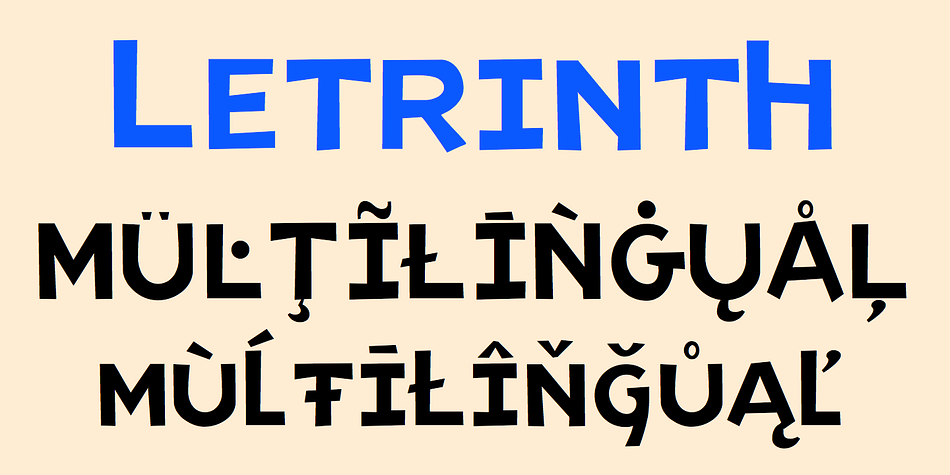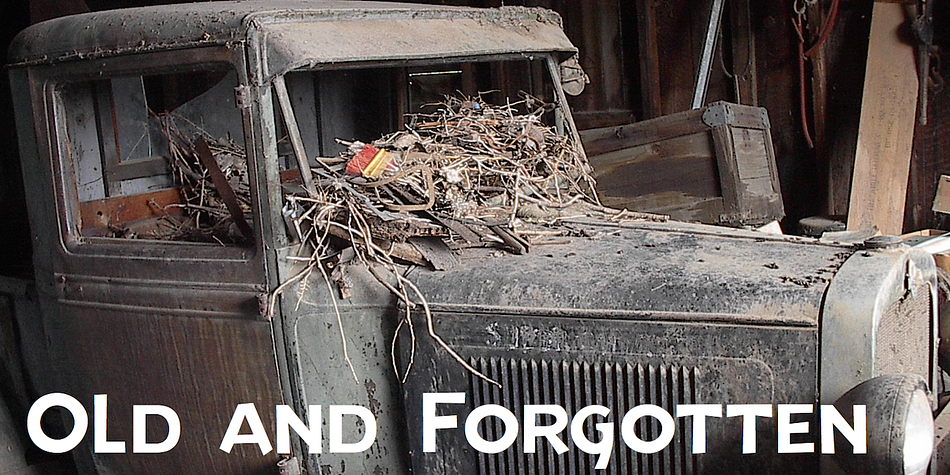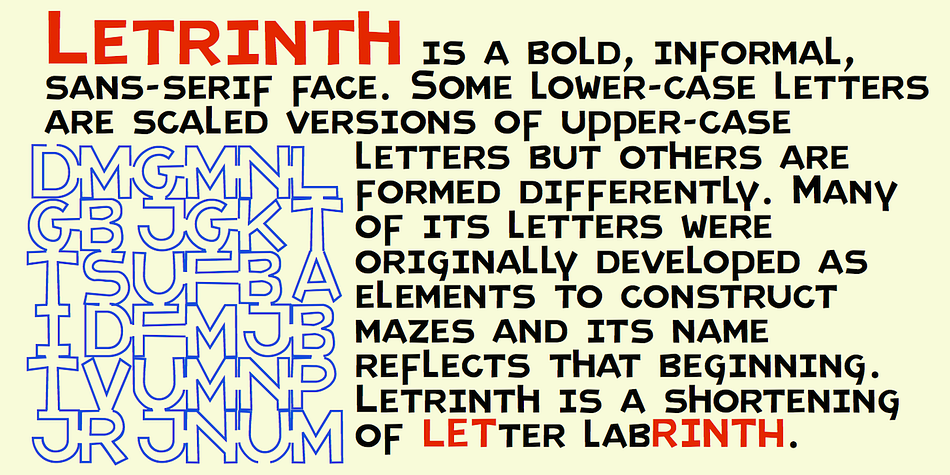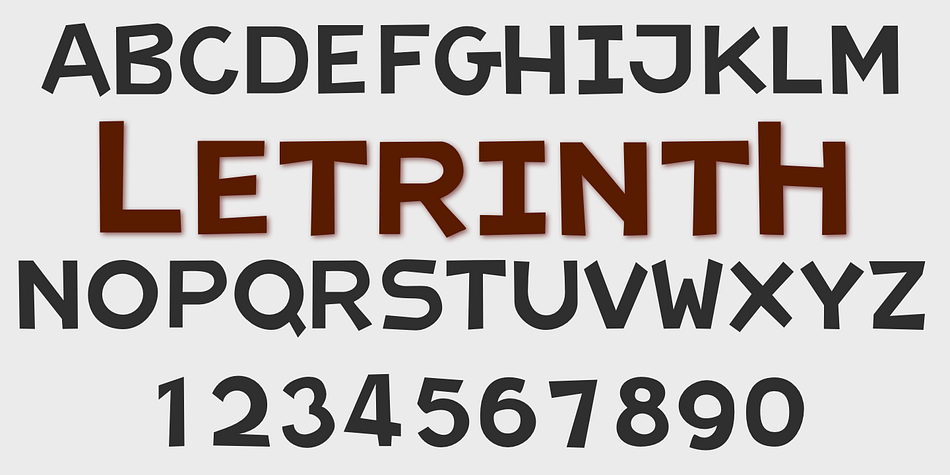
Designed by Robert Schenk, Letrinth is a hand display and sans serif font family. This typeface has two styles and was published by Ingrimayne Type.
Letrinth is a bold, informal sans-serif face. Its lower case is unusual in design; some of the characters are scaled versions of the upper-case letters. It was developed from a special alphabet I used to construct a maze and its name (LETters for a labyRINTH) reflects that origin.